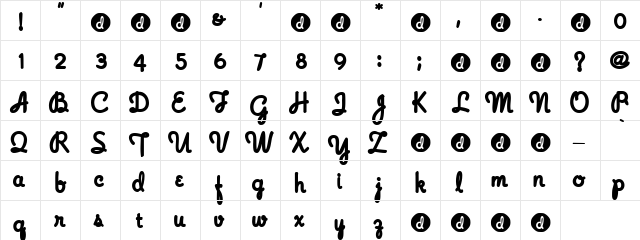
Sycophant Regular
Design Context for Sycophant Typeface
Sycophant is a composed and adaptable typeface that performs quietly and consistently across a wide range of design contexts.